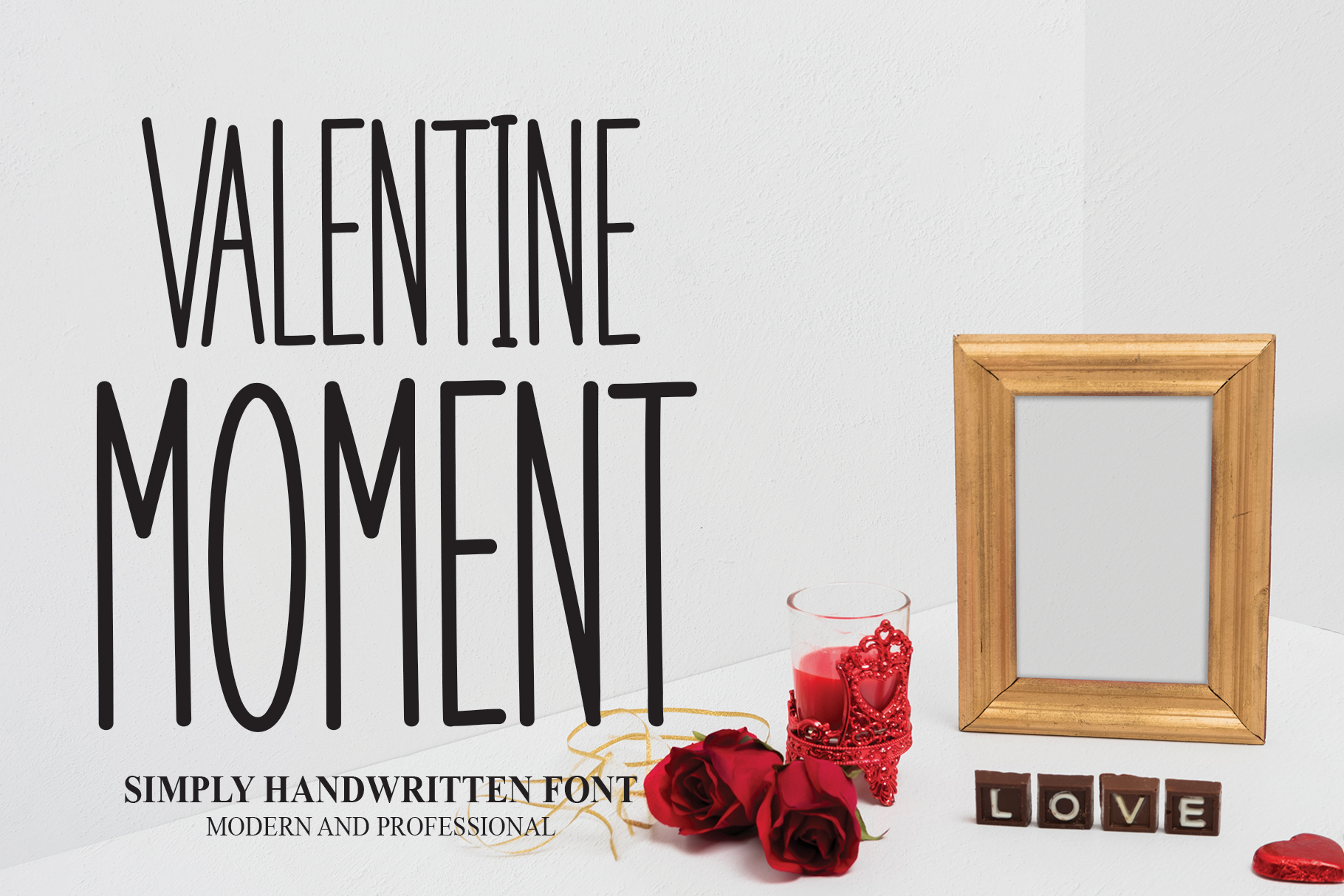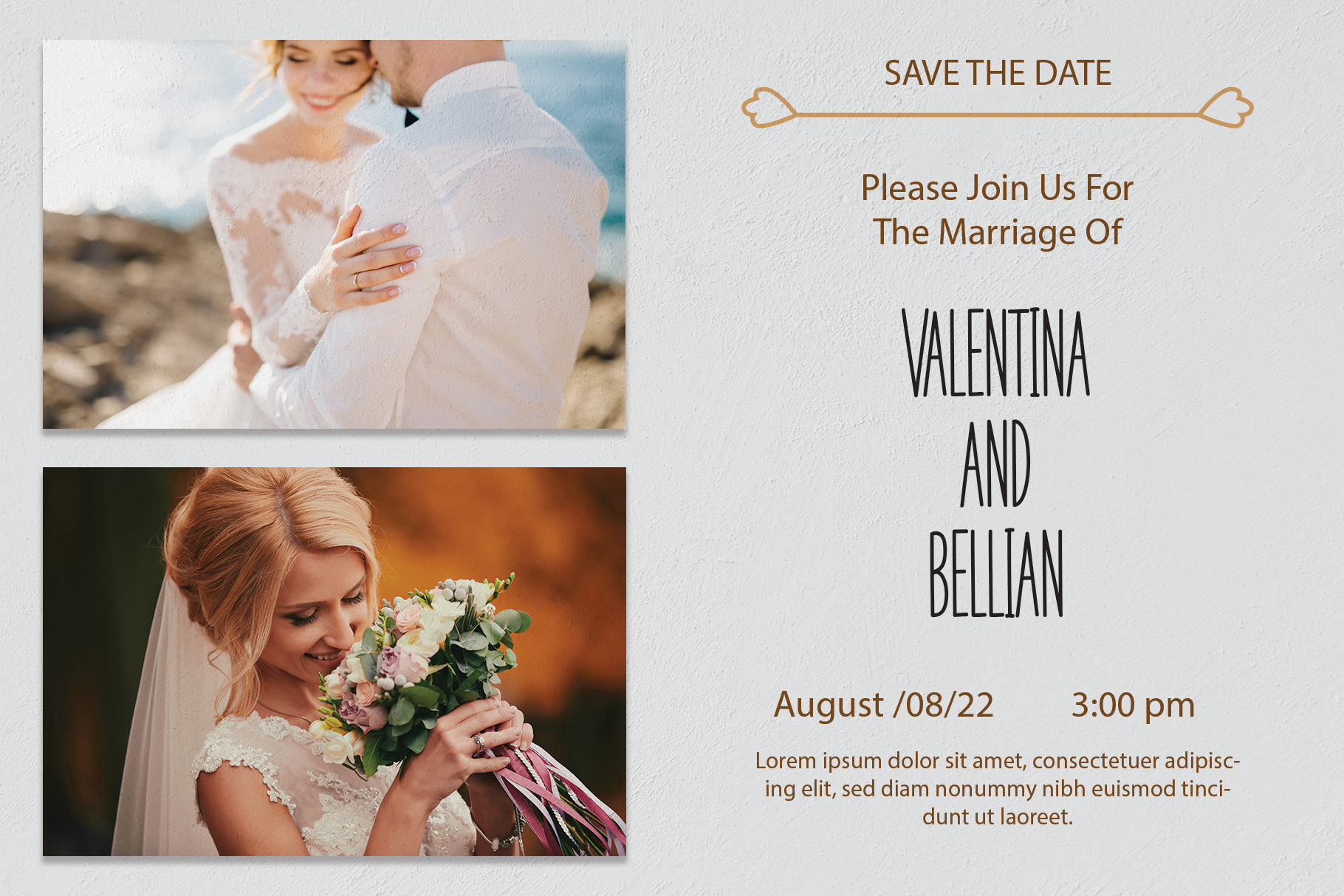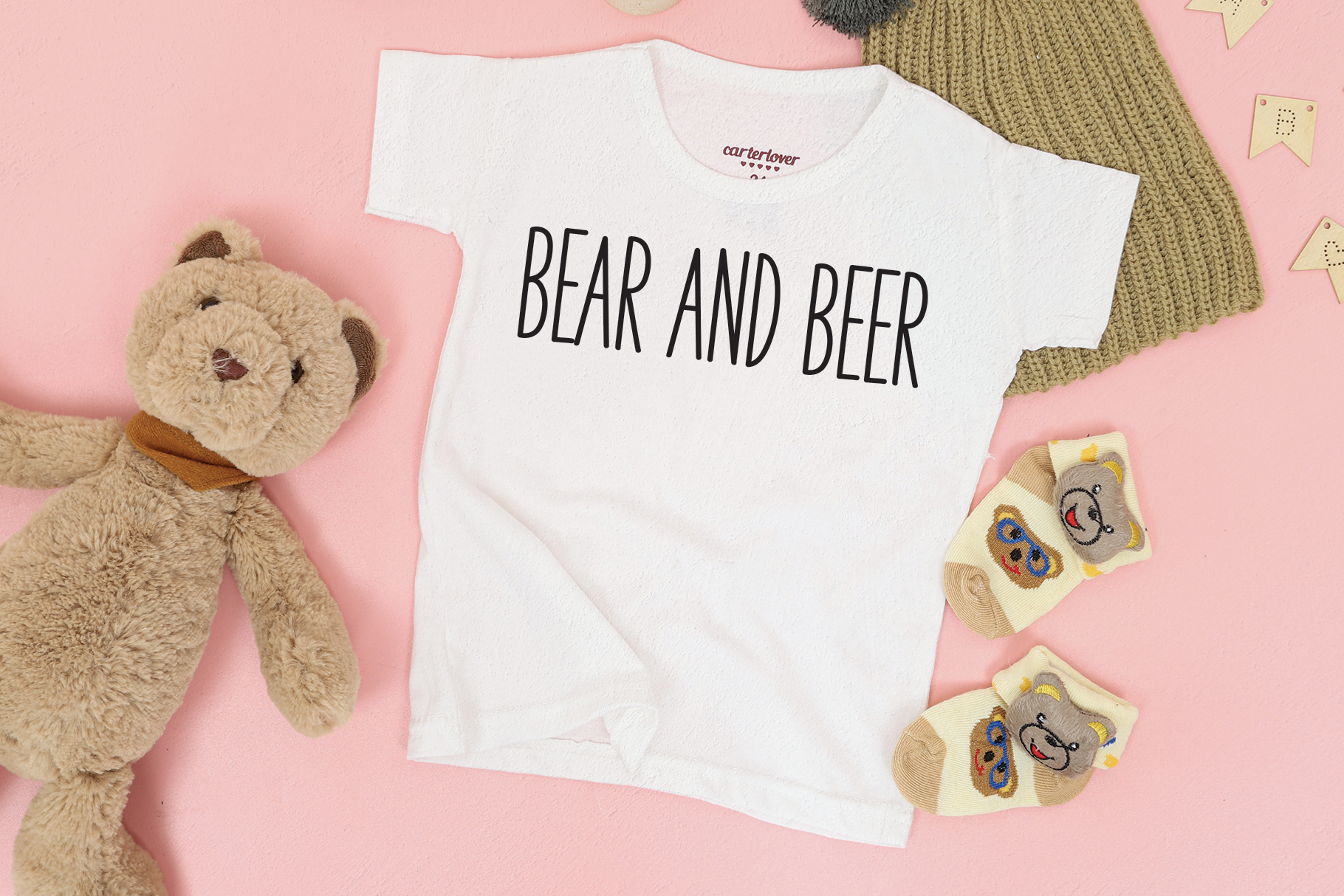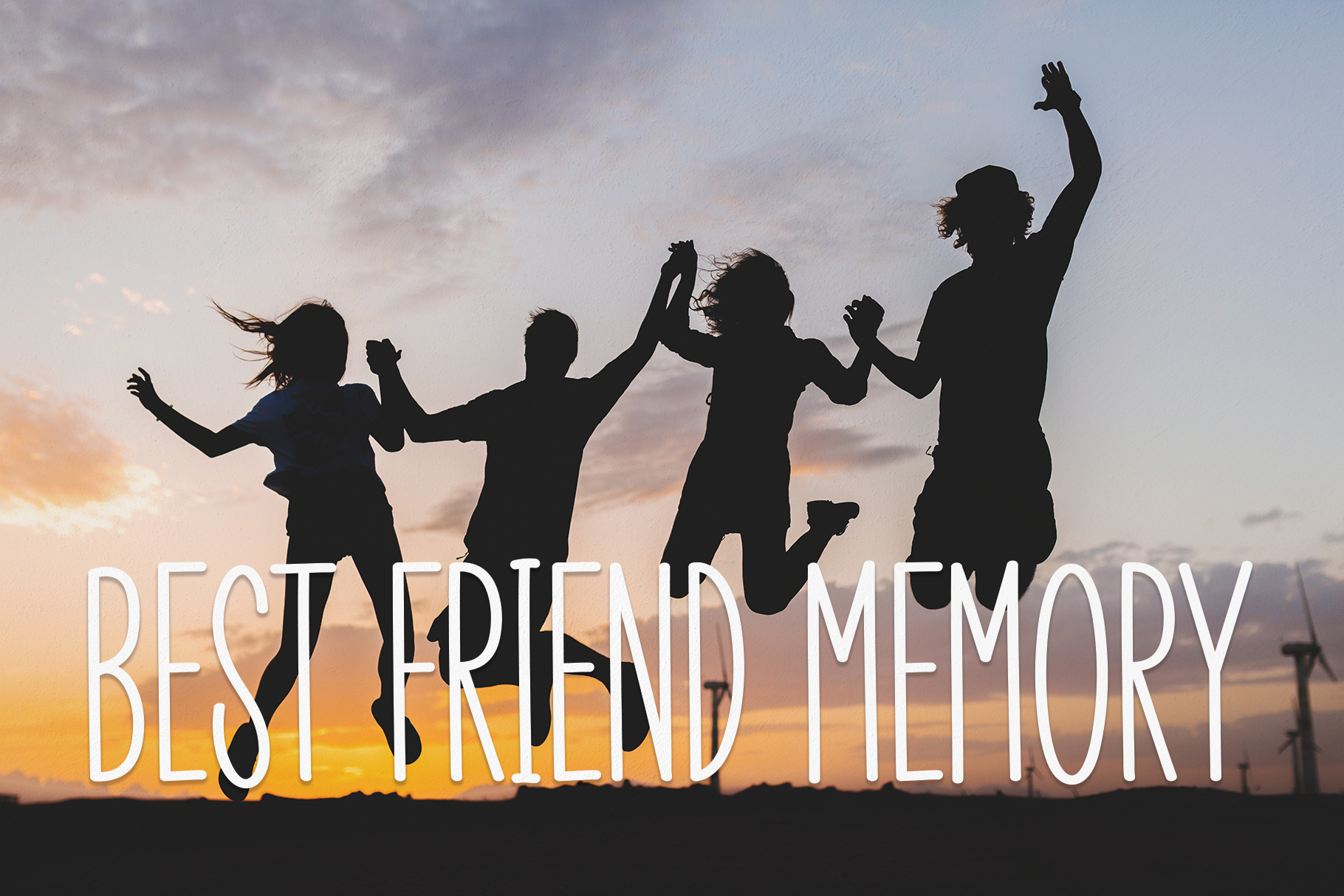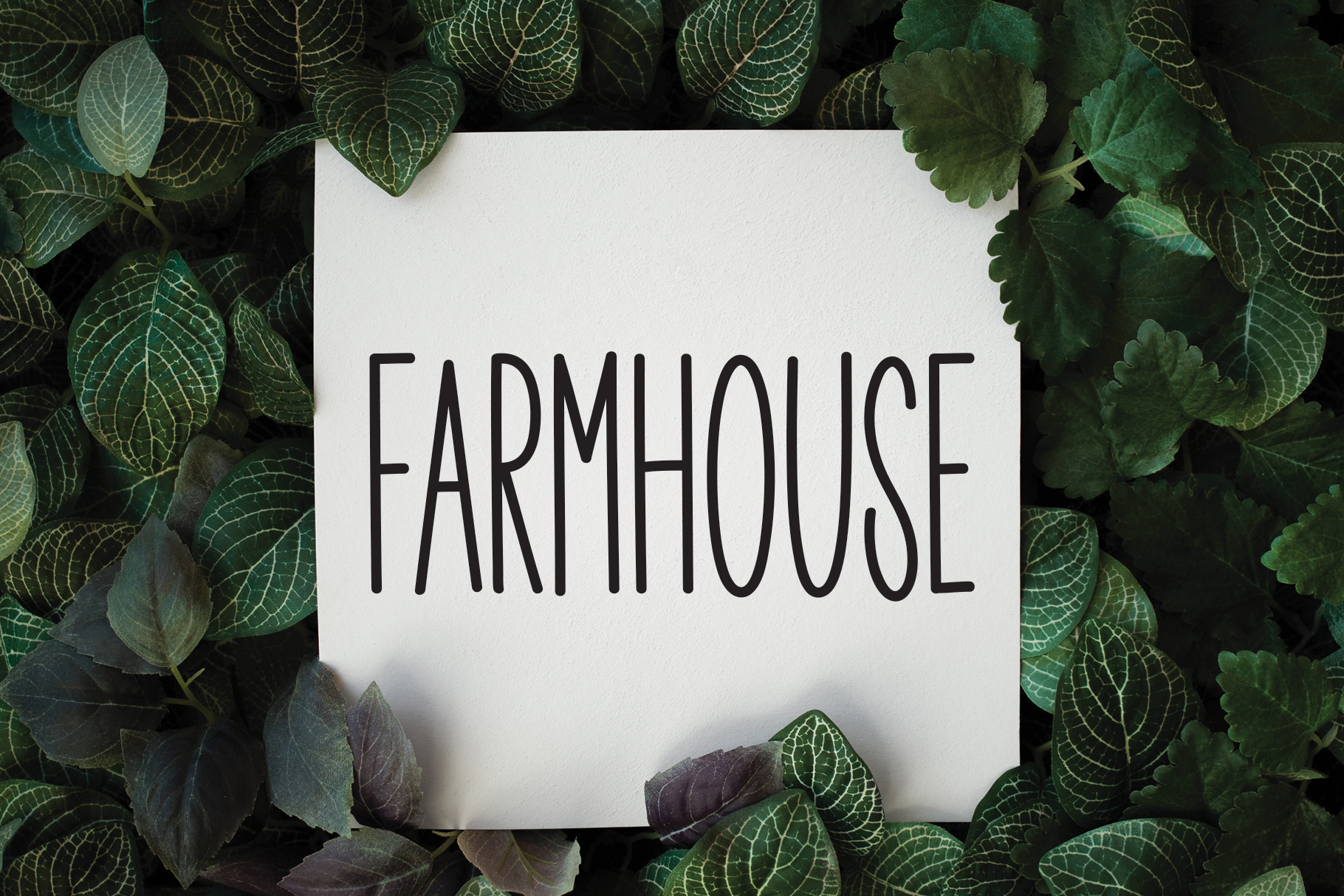
Valentine Moment Font
Valentine Moment Display Font
This is a tall and thin lettered handwritten font. It works incredibly well on quotes, logos, card writing or even wedding invitations. Its simple vibe will make your designs look impeccable.